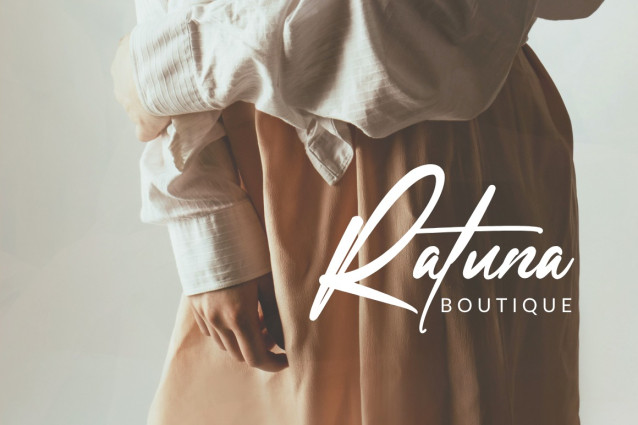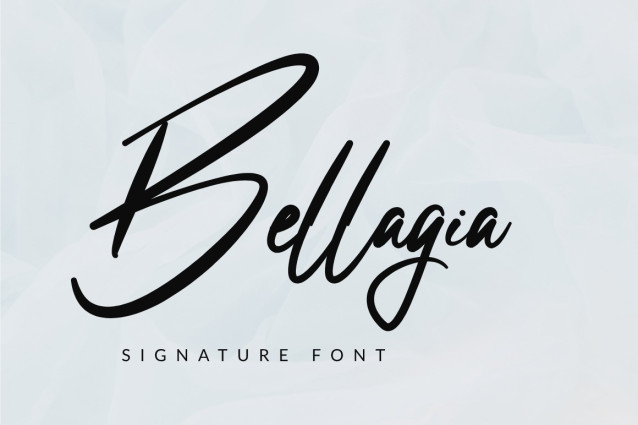
Bellagia Signature Font
Bellagia Signature Font, a font imbued with a refined elegance achieved through its dainty curves and flowing strokes. Combining timeless poise with modern dynamics, this font thrives in the rapidly evolving digital sphere of the present. Bellagia is your go-to choice for artistically crafting stylish social media posts, designing elaborate event invitations, and creating iconic brand logos. This unique font enriches every project with an added layer of luxe and persona, making each design not just a simple task, but an immersive experience that enthralls and stirs inspiration.